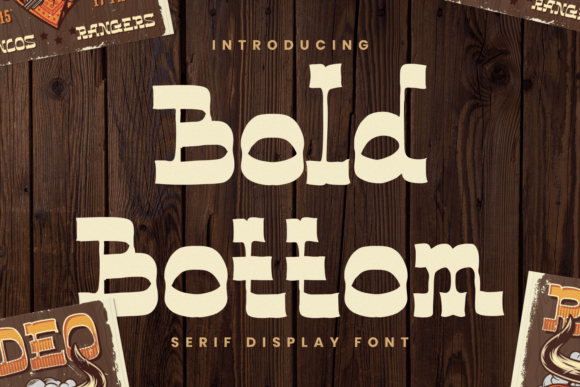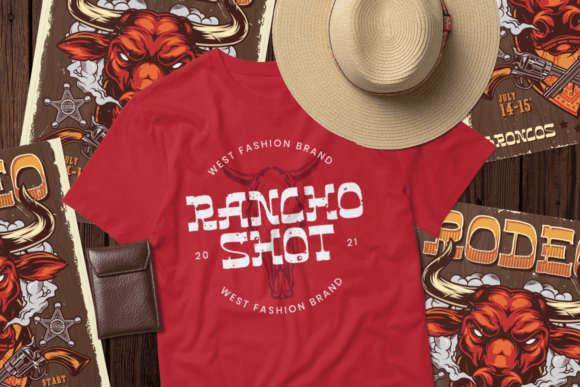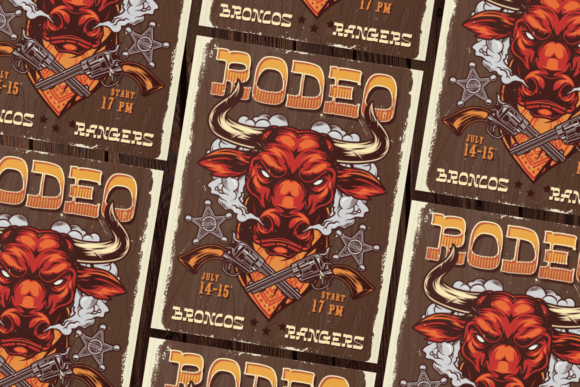
Bold Bottom: A Bold and Elegant Slab Serif Font
Bold Bottom is a bold slab serif font featuring visual elegance, smooth curves, and beautiful ligatures. This versatile typeface works effectively in both large and small sizes, making it perfect for various business and creative applications.
Key Features of Bold Bottom
- Bold Design: Offers thick, commanding letterforms[5].
- Elegant Style: Features smooth curves and beautiful ligatures.
- Versatile Scaling: Works well in both large and small sizes[7].
- Wide Application: Adapts to numerous business sectors.
Best Uses for Bold Bottom
Thanks to its versatile characteristics, Bold Bottom works especially well for:
- Professional logos
- Elegant invitations
- Magazine layouts
- Product packaging
- Photography branding
- Website design
- Social media content
When using Bold Bottom in your designs, keep these tips in mind:
- Take advantage of its beautiful ligatures for elegant typography[7].
- Use its bold character for commanding presence[8].
- Let its versatile scaling enhance both display and body text[7].
- Explore its potential across different business applications.
To sum up, Bold Bottom is an excellent choice for designers seeking a bold yet elegant slab serif font. Its versatility makes it perfect for various creative projects. Whether you’re creating corporate materials, designing product packaging, or developing creative content, Bold Bottom offers the perfect blend of boldness and elegance.
Furthermore, Bold Bottom’s distinctive design allows it to shine in contexts where both impact and sophistication are key. From editorial designs to social media content, this font can elevate your projects with its refined style. Also, its bold yet elegant appearance works particularly well in designs that aim to make a sophisticated impact[7][8].
In conclusion, Bold Bottom truly captures the essence of bold elegance in slab serif typography. Its versatility across different applications shows how well it can serve various creative and business needs. Therefore, for those wanting to add a touch of bold sophistication to their work, Bold Bottom can enhance any design with its distinctive style. Ultimately, it’s perfect for designers aiming to make an elegant, powerful impact across a wide range of projects.